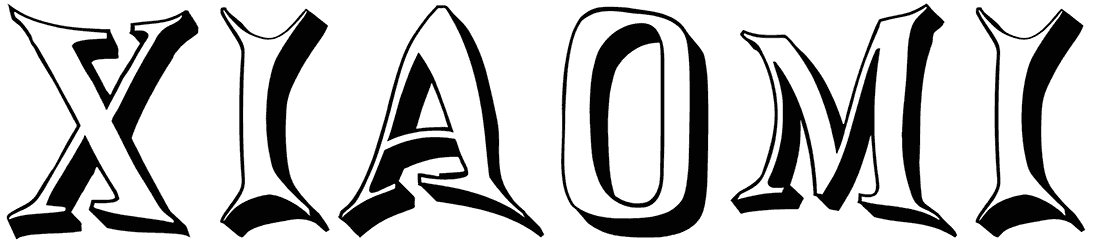
Xiaomi Font
When you are working on a whimsical design, using a stunning letterform like Xiaomi font will give it an appealing mood. The wavy and 3D form of this 3D font is going to bold the topic of your layout. There is no offer for lowercase letters, numerals, or punctuation marks, but this decorative font has the potential to make your words amazing.
It comes in Regular an Italic variant!